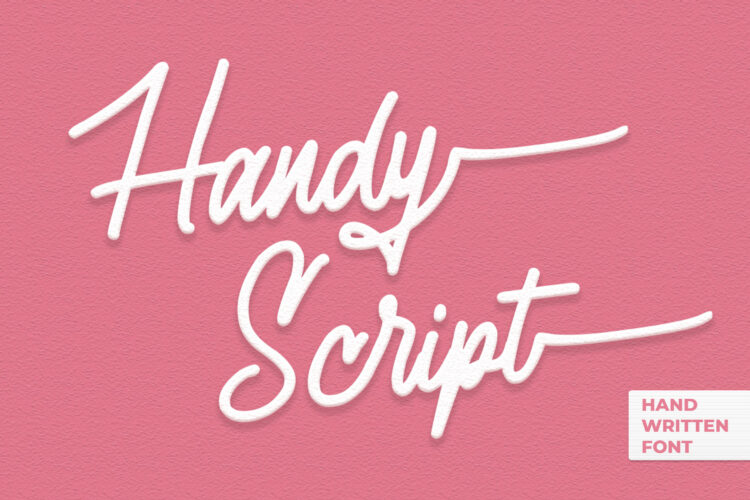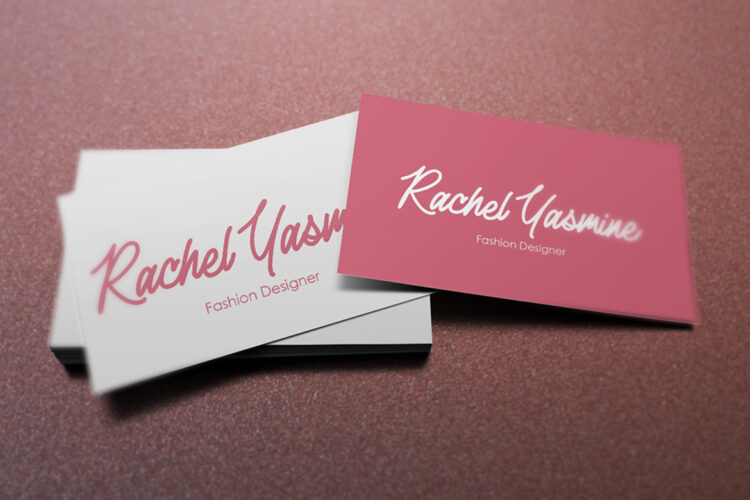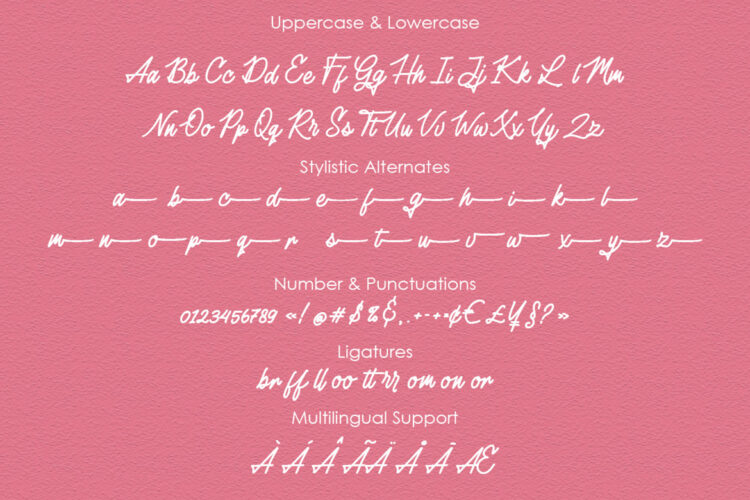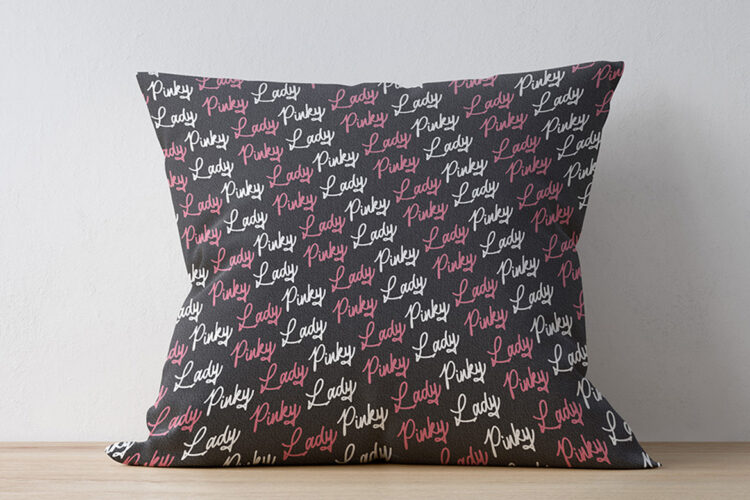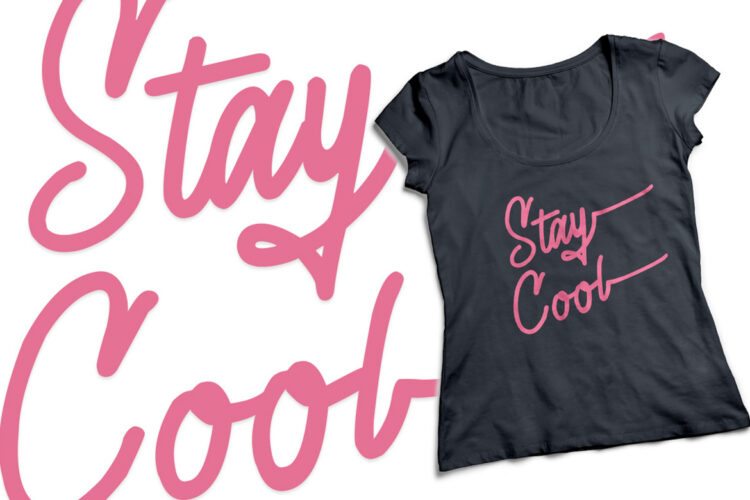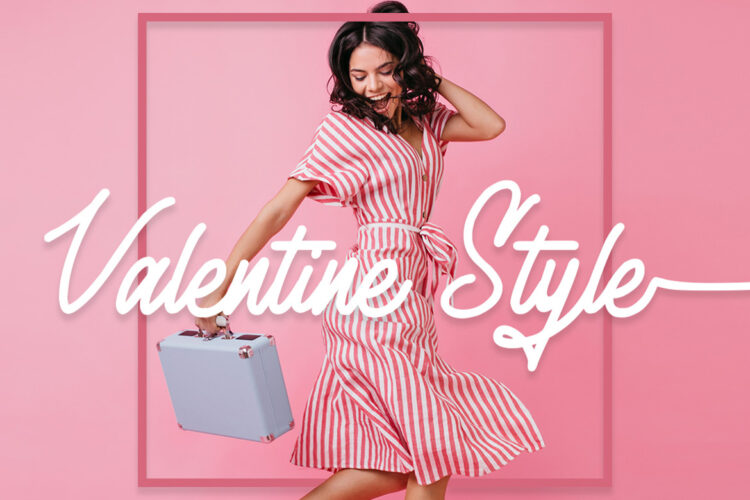
Handy Script is a handwritten font with a classy & natural flow. This collection of scripts is perfect for branding.this works well for many applications.
Handy Script